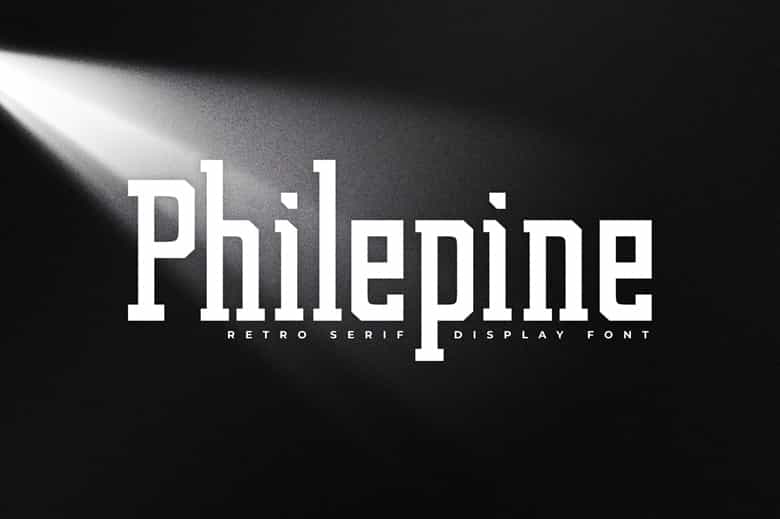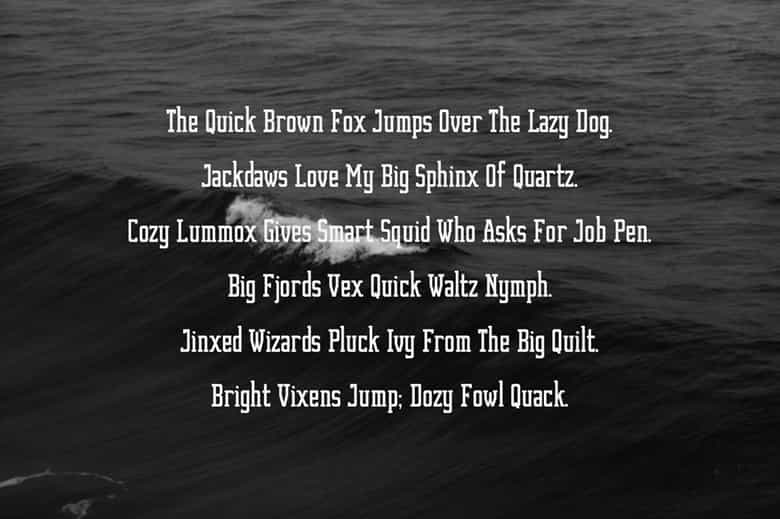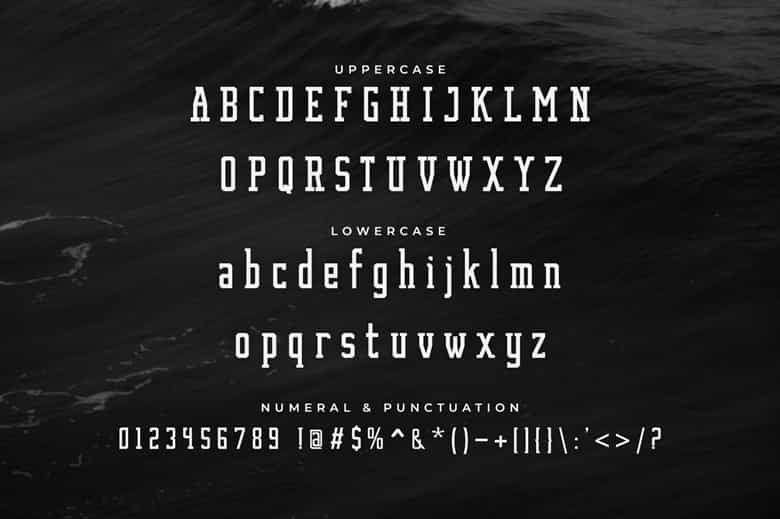
Philepine is a display font which, while a slab serif, has a bold retro look which makes it perfect for many different uses. The typeface is quite simple, bold and it does not loose its clarity even when used large. This font is best for making headings, logo, and any other designs that you want to be noticeable.